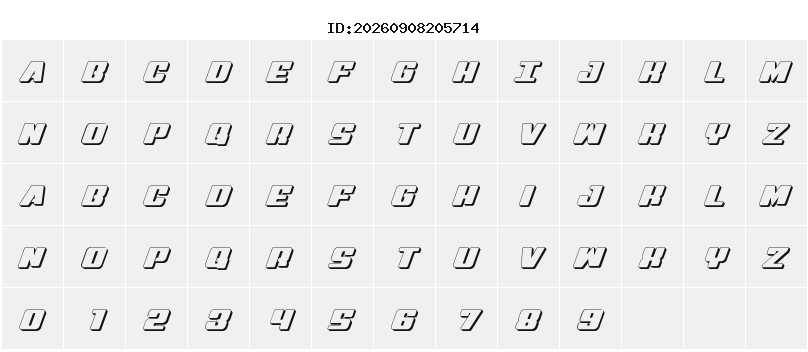
• Font Name: Virgin Hybrid 3D
Virgin Hybrid 3D.ttf is a modern, elegant sans-serif font designed for ultimate readability and visual harmony. Perfect for branding, headlines, web design, and print materials.